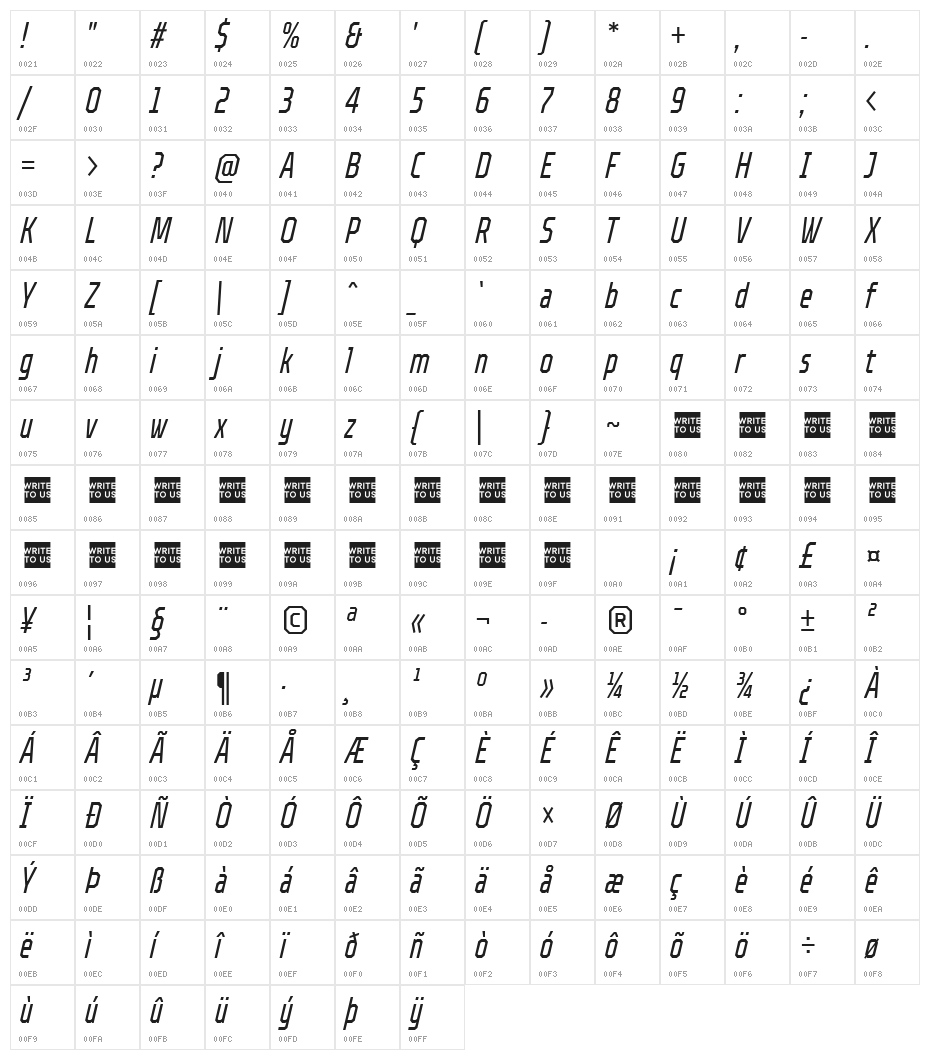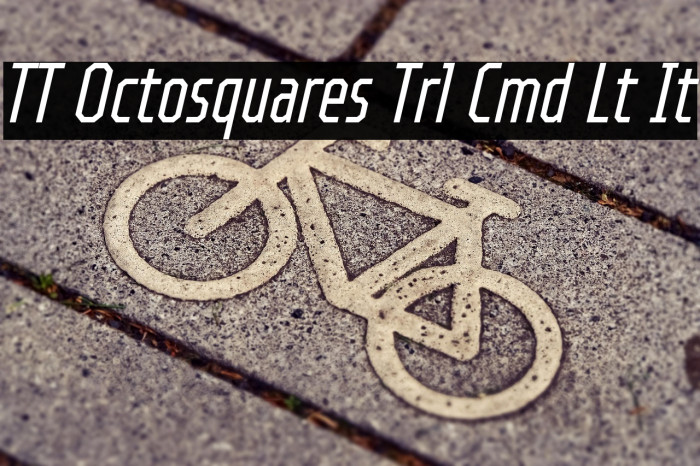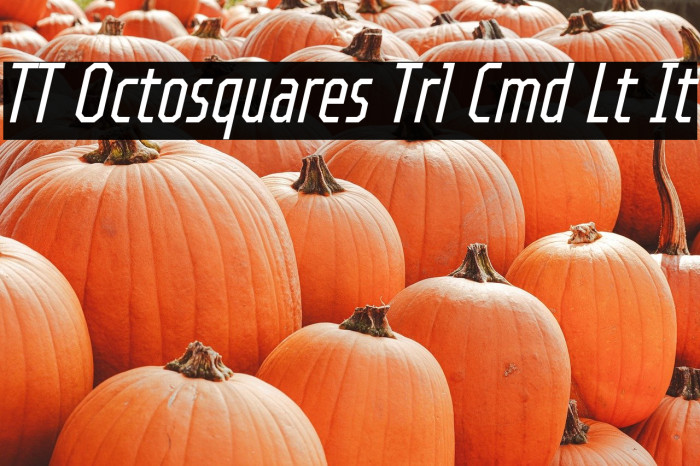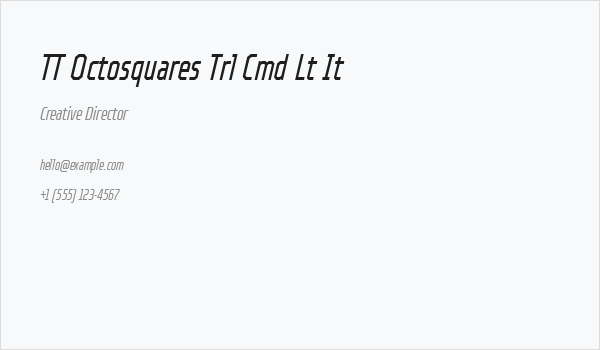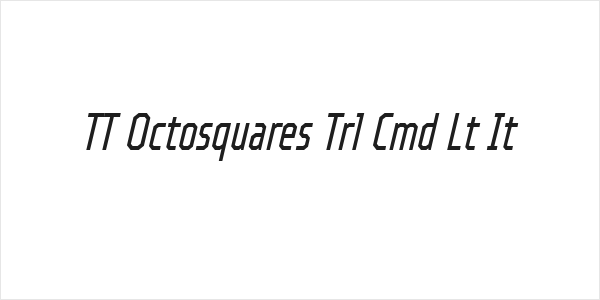
TT Octosquares Trl Cmd Lt It Font
TT Octosquares Trl Cmd Lt It Description
This font features a modern and angular design with a distinct geometric influence. The characters are slightly condensed, giving it a sleek and compact appearance. The italic style adds a dynamic and forward-leaning aspect, enhancing its contemporary feel. The strokes are consistent in weight, providing a uniform look across all characters. The font includes a full set of uppercase and lowercase letters, numbers, and a variety of special characters, making it versatile for different uses.
| Proposed Projects | Ideal for tech branding, futuristic designs, and modern advertising campaigns. |